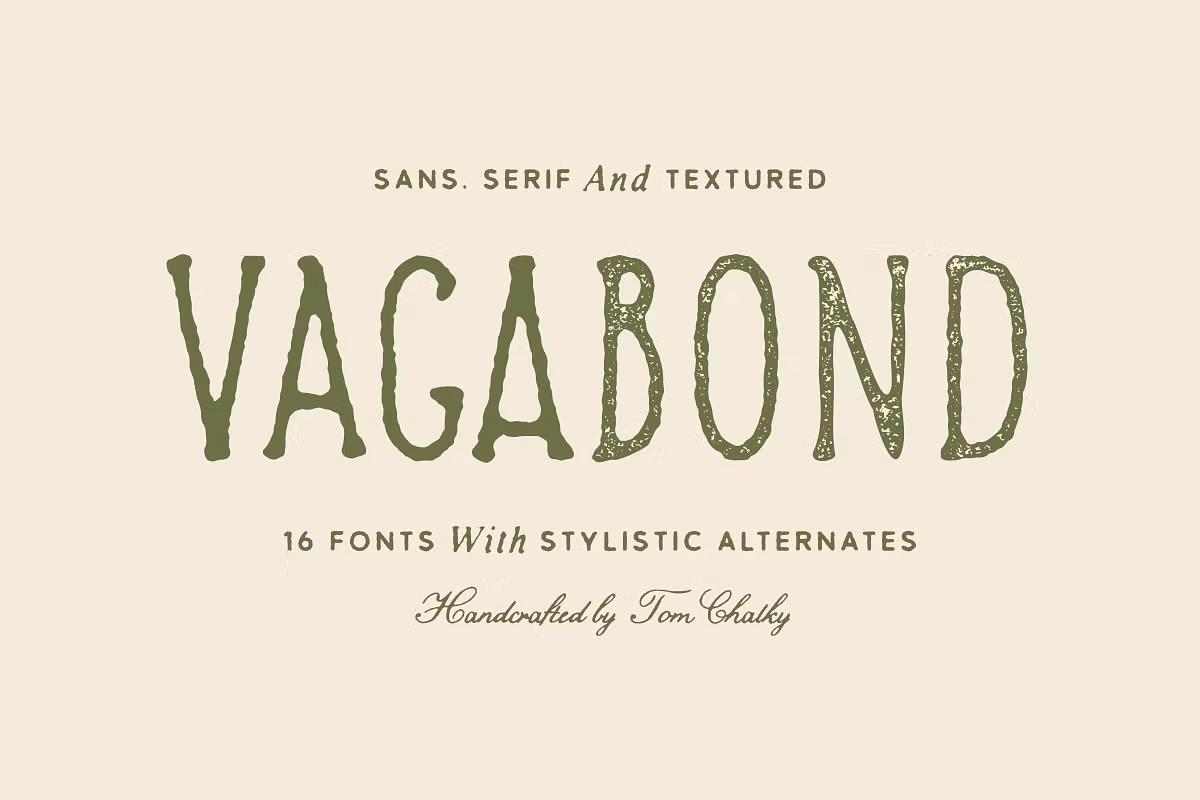
Vagabond - Handcrafted Font Pack Free Download is a versatile and rustic font pack designed with a handcrafted, artistic touch. This font pack includes several styles that combine a bold, unique look with the organic charm of hand-drawn lettering. Ideal for a variety of design projects, such as branding, logos, posters, t-shirt designs, and more, Vagabond brings a personal and creative flair to your typography.
The hand-crafted nature of the font gives it a raw, authentic feel, making it perfect for projects that want to convey individuality, creativity, and a laid-back vibe. Whether you're working on a bohemian-style brand, a travel-inspired project, or any design that needs a touch of handmade charm, this font pack has you covered.
Add a unique, personal touch to your designs with Vagabond - Handcrafted Font Pack Free Download, and create typography that stands out with an organic, creative flair. Perfect for designers who love distinctive, hand-crafted fonts.